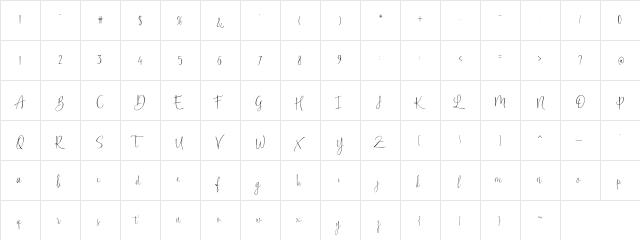
Lucky Spark DEMO Regular
| Foundry | Letterhend Studio |
| Designer | Afni |
Design Context for Lucky Spark DEMO Typeface
Lucky Spark DEMO is a composed and adaptable typeface that performs quietly and consistently across a wide range of design contexts.